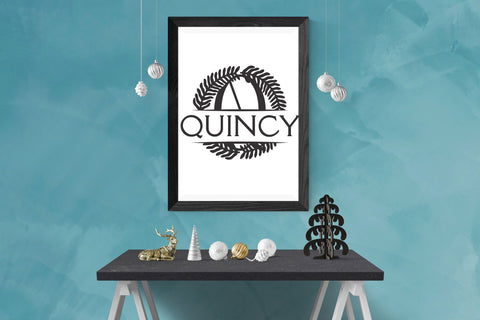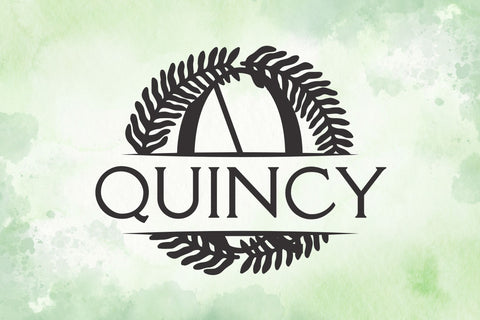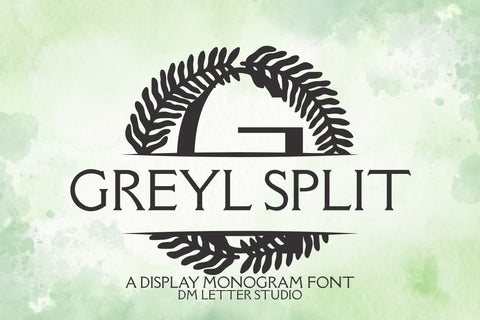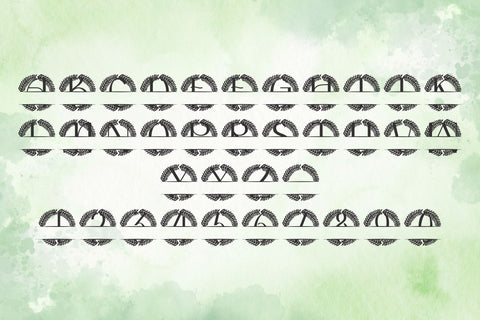
Greyl Split Monogram
Meet Greyl Split, the Split Monogram Font
Greyl Split Monogram turns simple initials into clean, modern emblems with a crisp center split for names, dates, or short words. The strokes are smooth and balanced, so letters stay clear at any size. Because counters remain open and curves stay clean, tiny tags print crisp while large signage looks sharp and refined. Use it for wedding suites, boutique logos, keepsake gifts, wax seals, stationery, and premium packaging. As a result, your designs look personalized and brand-ready in minutes.
Fast layouts with Greyl Split
Start with a bold split initial, then place a name, family title, or date across the center bar. After that, add supporting text in a modern serif or a clean sans. Because Greyl Split holds shape at small sizes, cards, cartons, acrylic signs, and tags print cleanly and cut smoothly. In addition, the proportions work beautifully with oval borders, thin dividers, minimalist frames, and subtle wreath accents, so full sets come together in minutes. Finally, save palette pairs like charcoal & ivory, stone & cream, navy & pearl, or champagne & black to repeat across your product line.
Creative uses and quick wins
- Logo badges, shop marks, and product seals
- Wedding monograms, place cards, and table numbers
- Wax seals, ribbon tags, and keepsake boxes
- Favor stickers, tissue labels, and thank-you cards
- Split monogram initials built for quick personalization
- Curves tuned for foil, letterpress, engraving, laser, vinyl, DTF, and sublimation
Design tips for Greyl Split Monogram
Keep the center text short so the initial stays the hero. Also, increase tracking slightly for names on small labels to improve readability. For extra depth, add a thin inner stroke or a soft shadow behind the monogram on light backgrounds. For texture, try linen stocks, vellum wraps, or soft-touch papers. Finally, export at 300 DPI for print and at 2× size for web so edges stay smooth everywhere.